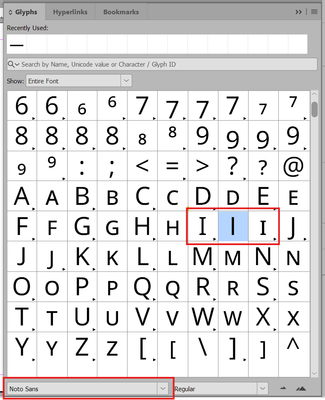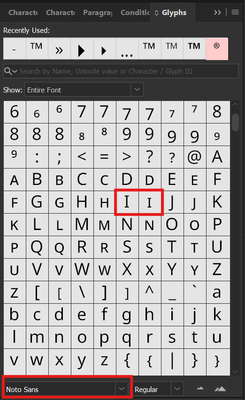
Are Google's Noto font family OpenType and will they work in Adobe InCopy?
Regardless of whether you activate the Noto Sans fonts via the Adobe Fonts service or download and install them directly from Google, the Noto Sans font family are OpenType TrueType fonts (i.e., OpenType with TrueType quadratic outlines) from Monotype that should work without any issues in Adobe applications including InCopy (and more importantly InDesign) as well as Illustrator, Photoshop, FrameMaker, Acrobat, etc.
I admit, Noto's premise is to create a font for every language and dialect on the planet, including ancient and indigenous peoples' languages, so when the entire family is downloaded and installed, you end up with the unwieldly list of fonts shown in your screen captures. There are close to 200 language and symbol variations at this time.
Well, I know this is an old thread, but I've just discovered a significant difference between Noto Sans from Google, and Not Sans from Adobe: the Google versions support Stylistic Sets, but the Adobe versions do not. This has bitten us big time! By default, the capital I in Noto Sans has serifs (to help distinguish it from other similar characters, such as lowercase form of L). However, my company's product name happens to feature three capital I's and they definitely want the sans form. Originally, using the Google fonts, I set up a GREP routine in our basic paragraph style which automatically applied Stylstic Set 4 whenever capital I appeared as part of our product name: this produces the sans form of the character. But now our translation service is insisting that the Google Noto fonts are problematic (reasons not stated) and want to use the Adobe fonts instead. But, as I have just discovered, these have no alternate Stylistic Sets. I don't know why Adobe has removed that feature!
By default, the capital I in Noto Sans has serifs (to help distinguish it from other similar characters, such as lowercase form of L).
Right now, I find that both Adobe and Google's versions have the slab serifs on the Noto Sans capital "I". I don't see any difference between Adobe's and Google's.
I just downloaded the lastest NotoSans from GitHub, installed it, and checked the glyphs panel. The font has 3 stylistic variations:
So choose the variation you want for your company's logo.
Thanks—I hadn't thought of downloading Noto Sans from GitHub. Actually, I was quite happy with what I downloaded from Google Fonts: it was our translation service that objected to those 'versions' and insisted we use Noto Sans from Adobe instead.
My bad, I didn't explain the capital "I" issue correctly. Yes, by default, Noto Sans has slab serifs for the capital "I", and that is true whether you source it from Google, Adobe or (I assume) GitHub: it's a feature of the core font design (and I understand why that was done). But with the version from Google, you can work around this by applying Stylistic Set 4 to the character: this applies the alternate glyph which has no serif. (I am not sure if this also works with the font from GitHub, but based on your screenshot, I would think it does.)
But what I was trying to explain is that with Noto Sans downloaded from Adobe, this doesn't work—because for some unknown reason, Adobe did not include Stylistic Sets with its versions of Noto Sans.
Here is what I see in the glyphs panel, corresponding to yours except that in my case, Noto Sans was downloaded from Adobe Fonts:
As you can see, the only available variant is the small caps glyph. The others do not appear—because they're not there. (The same is also true for other alternates: for example, in Noto Sans, the default capital J descends below the baseline. But you'll notice in your screenshot, there's an alternate version which sits flush on the baseline. Again, this is not available in the Adobe version.)
Anyway, I will talk my translation service and see if they're prepared to download and use Noto Sans from GitHub, instead of Adobe.
I've shared this issue internally to see if we can get the stylistic elements added to the Adobe version of Noto Sans.